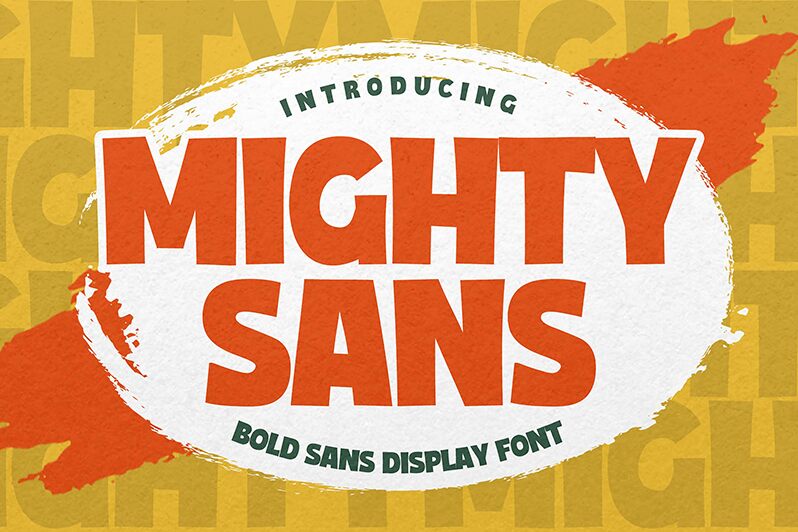
Mighty Sans
Mighty Sans font is an exciting bold display font designed by Gassstype to bring a fun, cartoon-style handwriting touch to your projects. This creative typeface has well-defined curves and letters made up of playful, friendly strokes that fit together beautifully but don’t seem connected. Its casual and welcoming appearance is likely to attract today’s younger audiences as it effortlessly re-plays those times we spent with a pen in hand having fun.